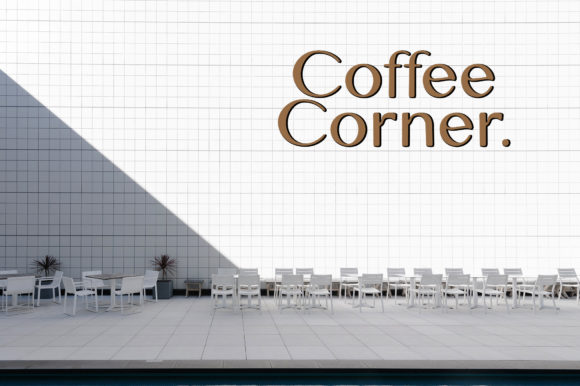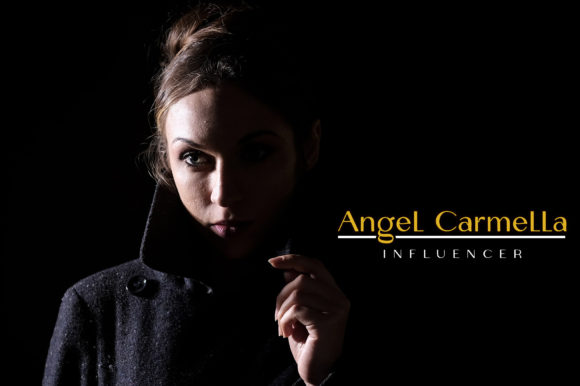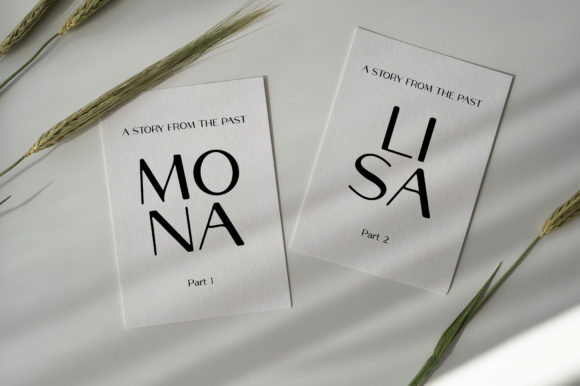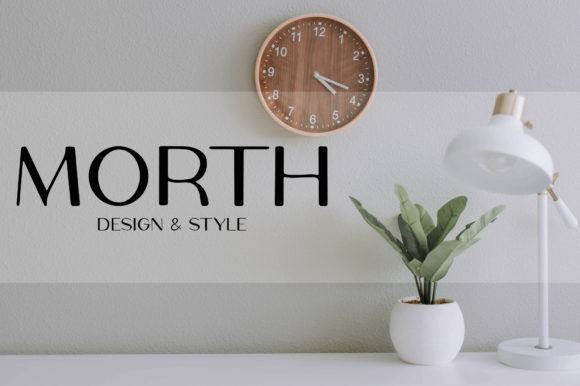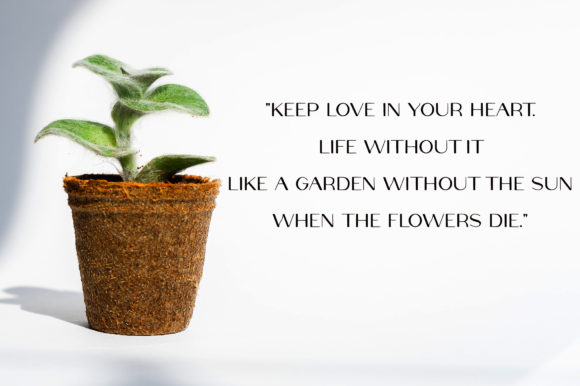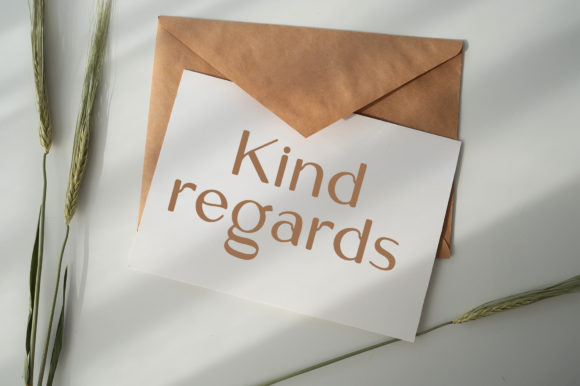
Introducing Glowforge Font: Elevate Your Designs with Elegance
Are you a designer or crafter looking for the perfect font to add a touch of sophistication to your projects? Look no further than Glowforge Font, a stylish and simple lettered sans serif font that is sure to enhance the beauty of your creations. In this article, we’ll dive into the features and benefits of Glowforge Font, and explore how it can take your designs to the next level.
What is Glowforge Font?
Glowforge Font is a carefully crafted sans serif font that strikes the perfect balance between style and simplicity. With its clean lines and elegant curves, this font is designed to add a touch of sophistication to any project. Whether you’re working on a logo, branding materials, or craft projects, Glowforge Font is the perfect choice.
Key Features of Glowforge Font
- Balanced and Varied: Glowforge Font is designed to be balanced and varied, with a thickness that’s not too thin and not too thick. This makes it perfect for a wide range of applications, from digital designs to print materials.
- Stylish and Simple: With its clean lines and elegant curves, Glowforge Font is both stylish and simple. This font is perfect for designers and crafters who want to add a touch of sophistication to their projects without overpowering them.
- Lettered Sans Serif: Glowforge Font is a lettered sans serif font, which means it’s perfect for designs that require a clean and modern look.
Benefits of Using Glowforge Font
So why choose Glowforge Font for your next project? Here are just a few benefits of using this amazing font:
- Elegance and Sophistication: Glowforge Font adds a touch of elegance and sophistication to any project, making it perfect for designers and crafters who want to create high-end designs.
- Versatility: With its balanced and varied design, Glowforge Font is perfect for a wide range of applications, from digital designs to print materials.
- Easy to Read: The clean lines and simple design of Glowforge Font make it easy to read, even at small sizes.
How to Use Glowforge Font in Your Designs
Using Glowforge Font in your designs is easy. Here are a few tips to get you started:
- Pair it with Other Fonts: Glowforge Font pairs perfectly with other fonts, making it easy to create unique and interesting combinations.
- Experiment with Colors: The clean design of Glowforge Font makes it perfect for use with a wide range of colors and textures.
- Use it for Headings and Titles: Glowforge Font is perfect for use in headings and titles, where its elegant design can really shine.
Who is Glowforge Font for?
Glowforge Font is perfect for designers and crafters who want to add a touch of elegance and sophistication to their projects. This includes:
- Graphic Designers: If you’re a graphic designer looking for a font that can help you create high-end designs, Glowforge Font is the perfect choice.
- Crafters: If you’re a crafter who wants to add a touch of elegance to your projects, Glowforge Font is perfect for use in craft tutorials, patterns, and other materials.
- Small Business Owners: If you’re a small business owner who wants to create professional-looking designs without breaking the bank, Glowforge Font is a great option.
In conclusion, Glowforge Font is a stylish and simple lettered sans serif font that’s perfect for designers and crafters who want to add a touch of elegance and sophistication to their projects. With its balanced and varied design, Glowforge Font is perfect for a wide range of applications, from digital designs to print materials. So why wait? Download Glowforge Font today and start elevating your designs to the next level!